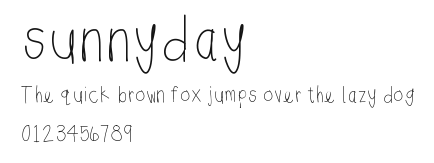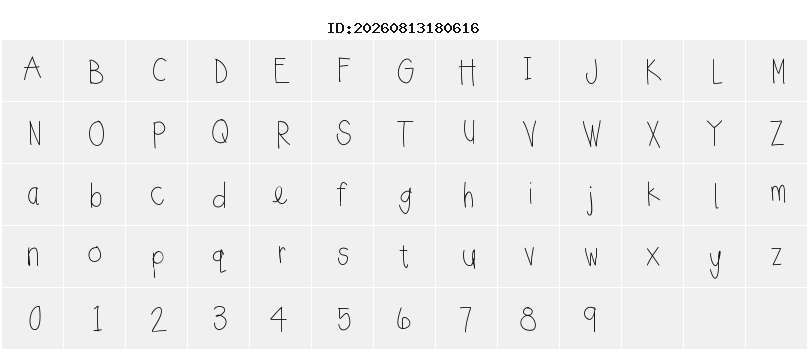
sunnyday Preview
sunnyday.ttf is a modern, elegant sans-serif font designed for ultimate readability and visual harmony. Perfect for branding, headlines, web design, and print materials.